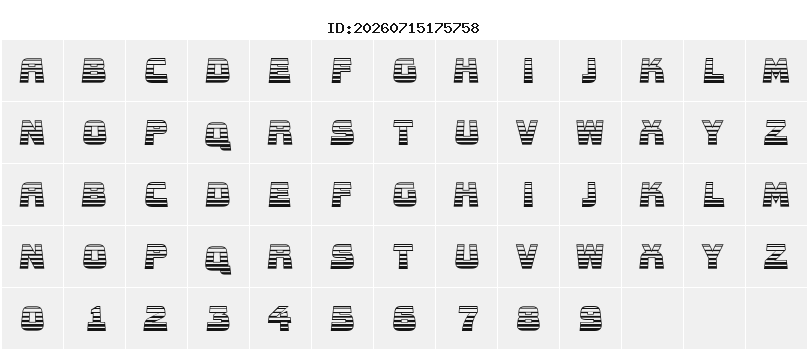
a_ConceptoTitulNrLdGd Preview
• Font Name: a_ConceptoTitulNrLdGd
• Font ID: a_ConceptoTitulNrLdGd
• Full Font Name: a_ConceptoTitulNrLdGd
• Version: 01.02
• PostScript Name: AConceptoTitulNrLdGd
• Character Count: 194
About a_ConceptoTitulNrLdGd.ttf
a_ConceptoTitulNrLdGd.ttf is a modern, elegant sans-serif font designed for ultimate readability and visual harmony. Perfect for branding, headlines, web design, and print materials.